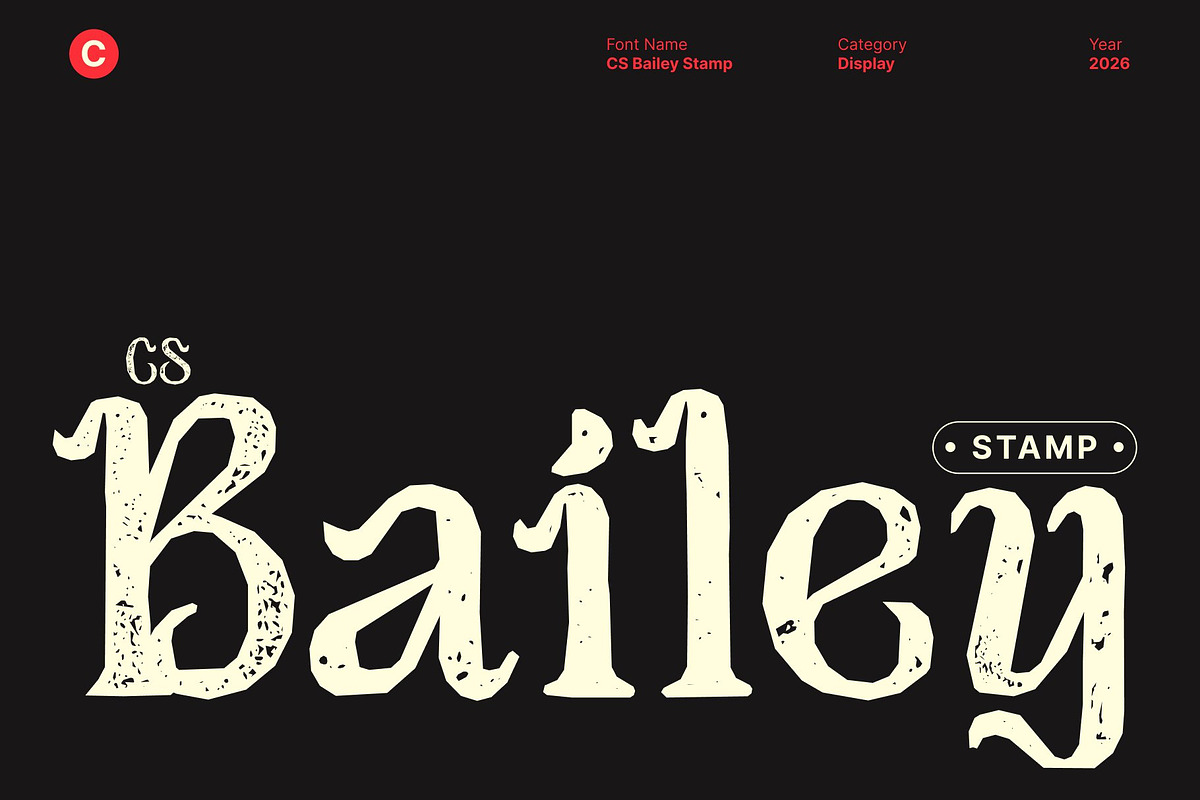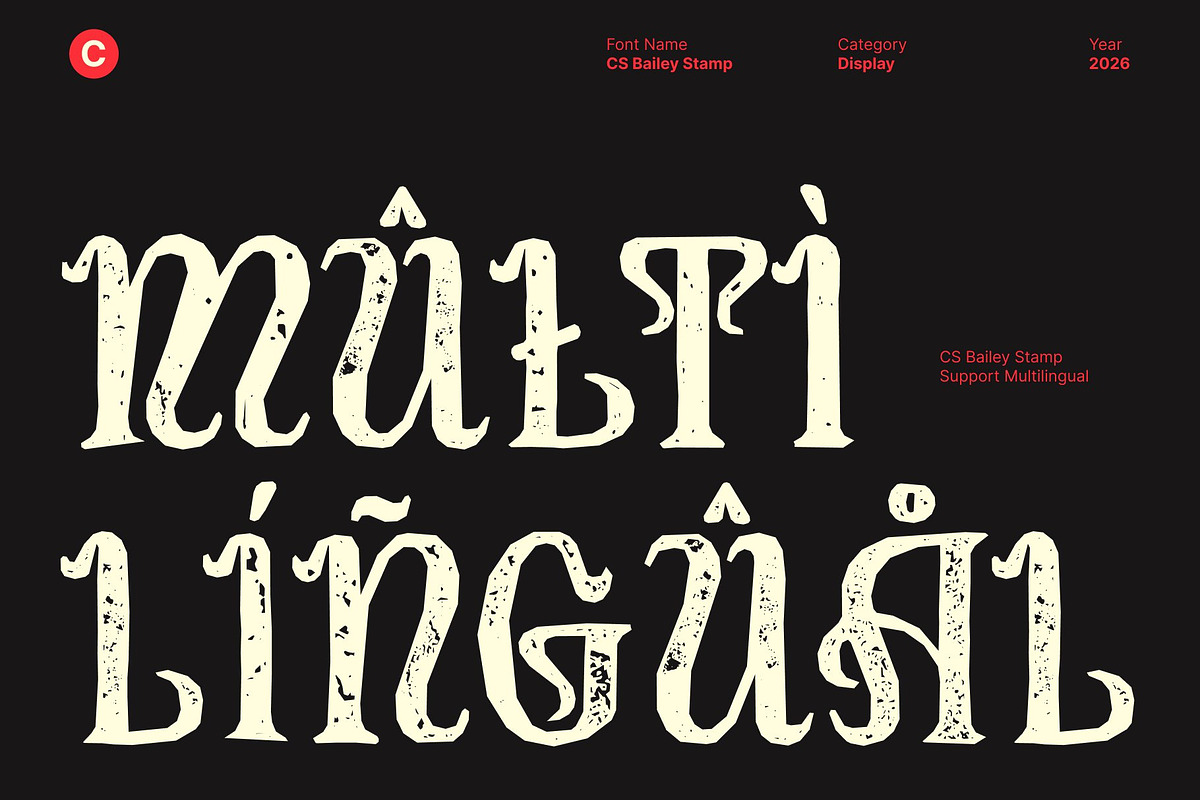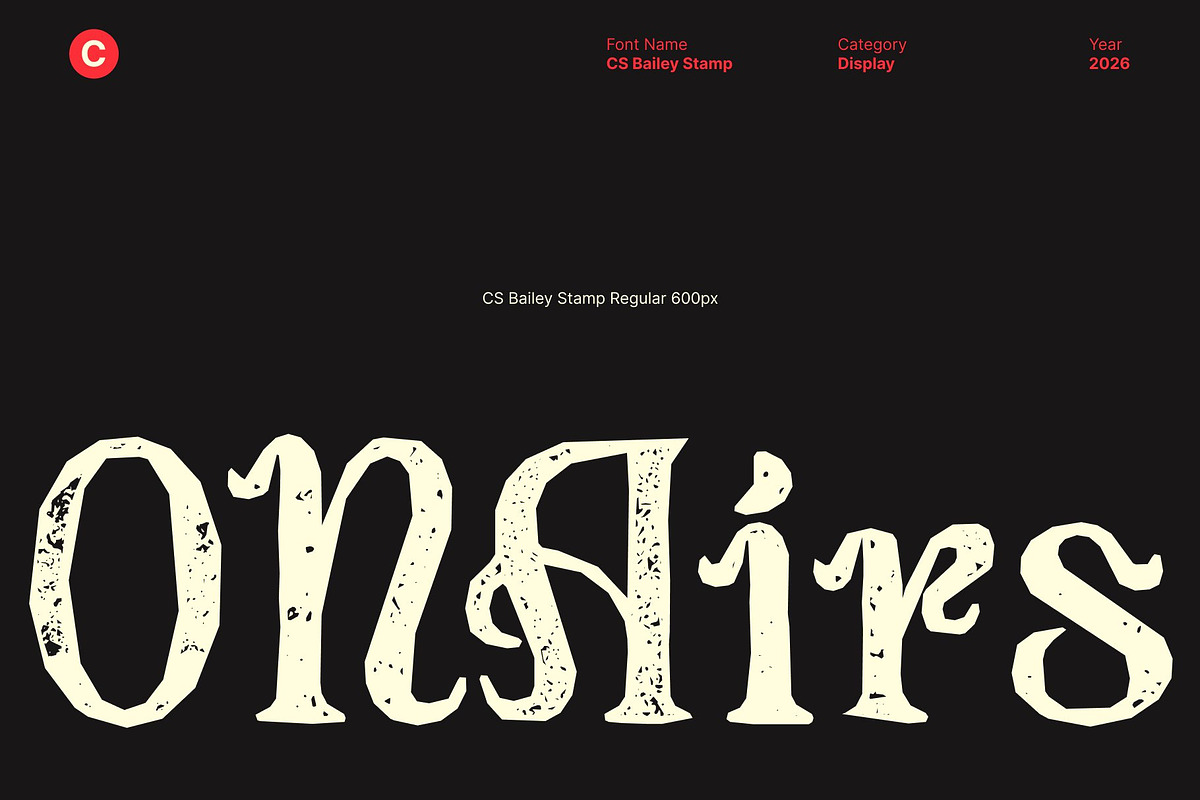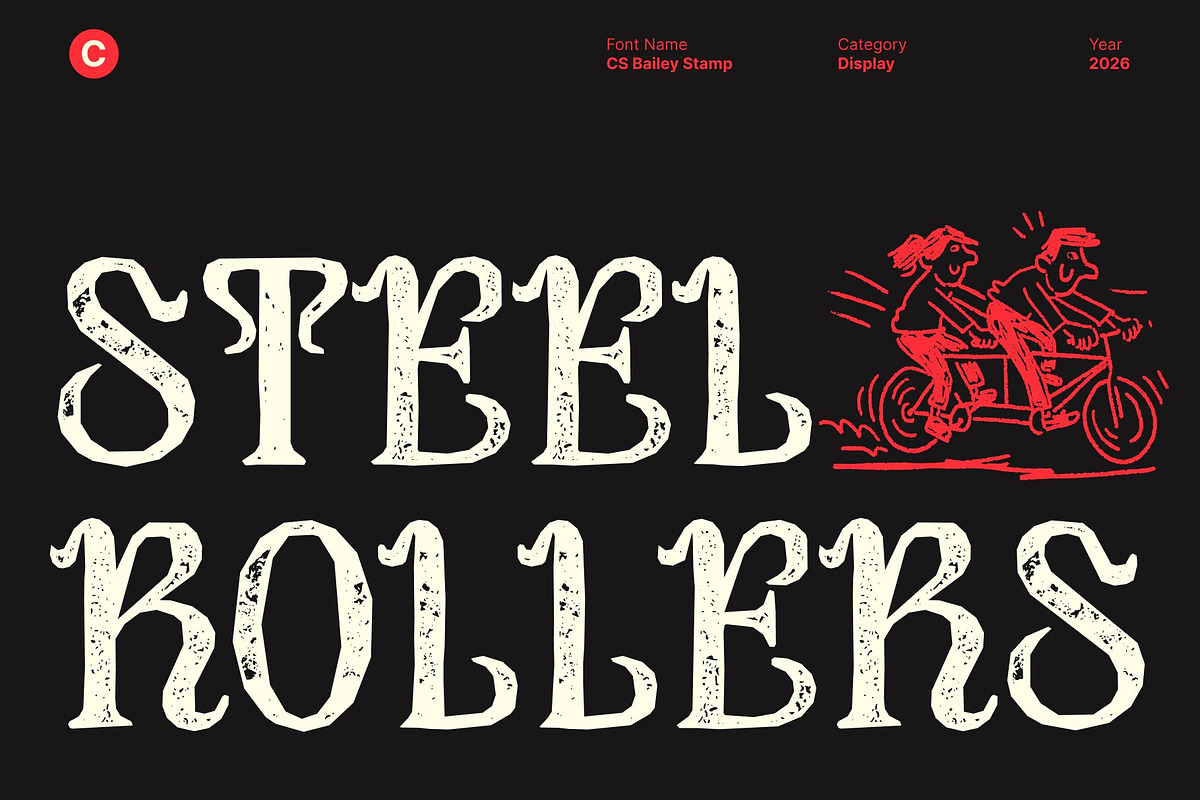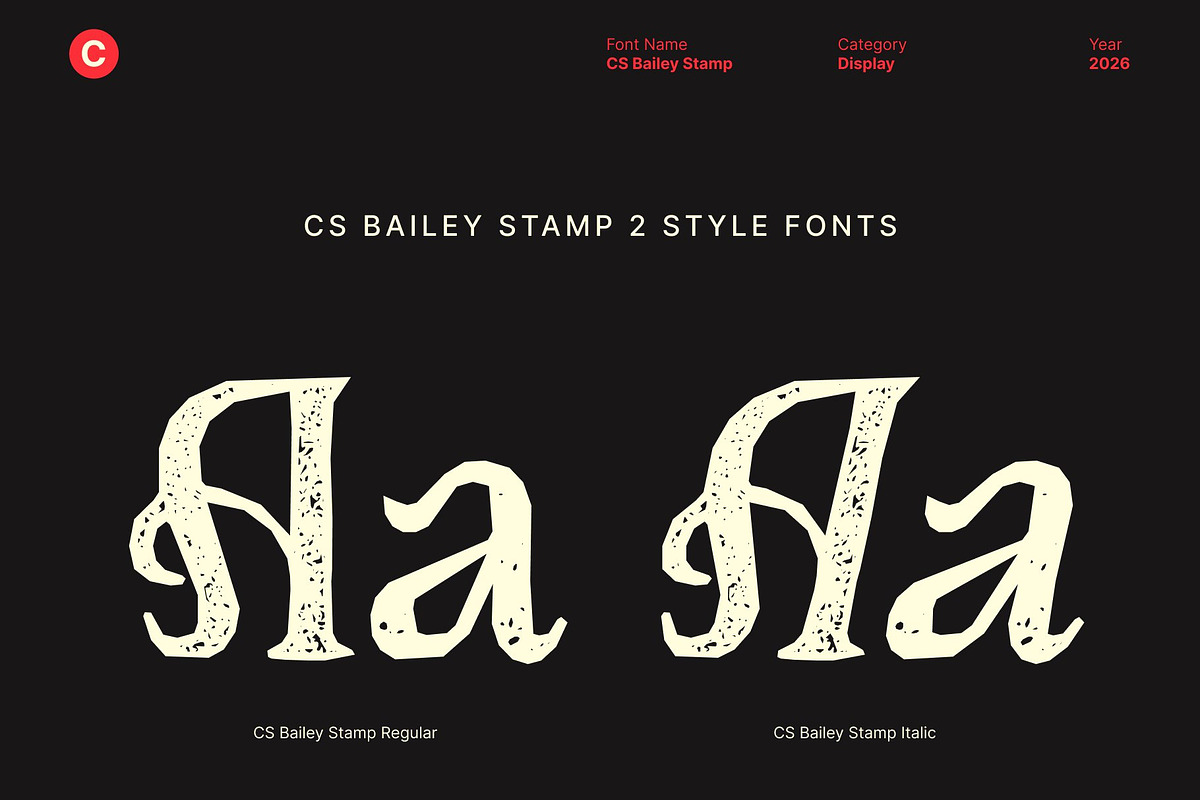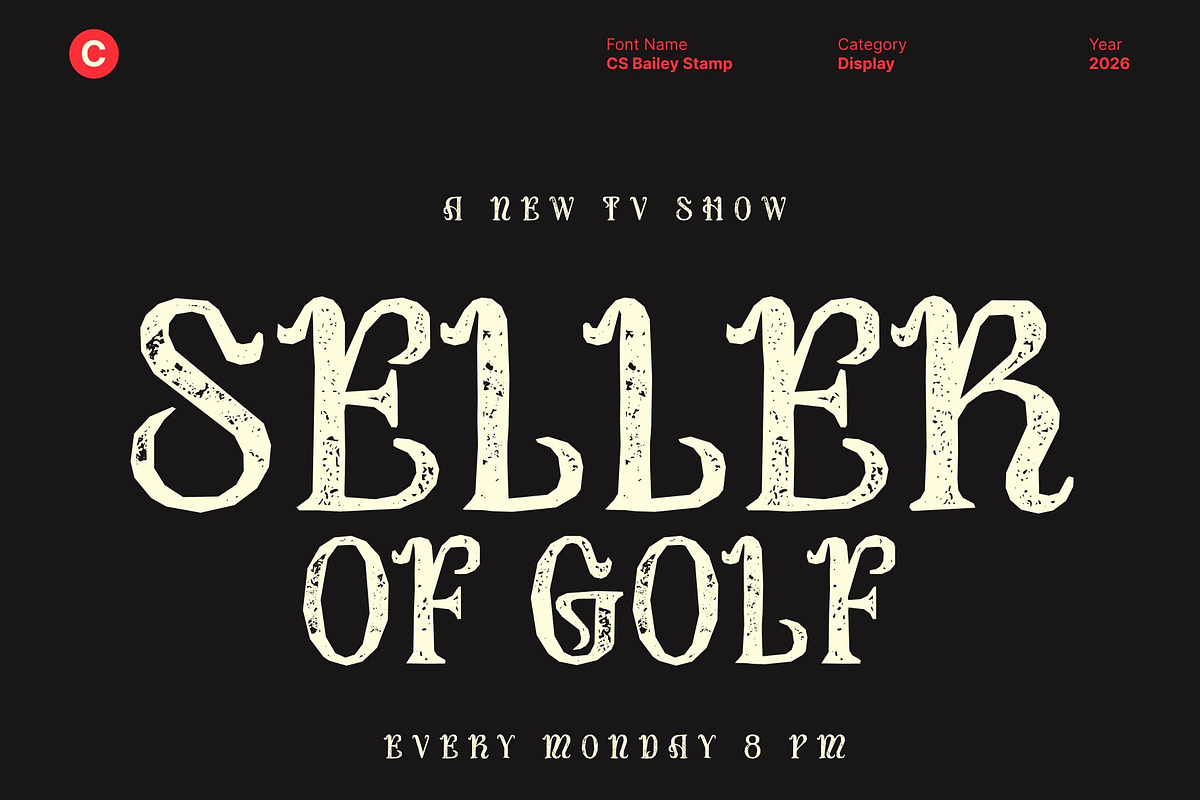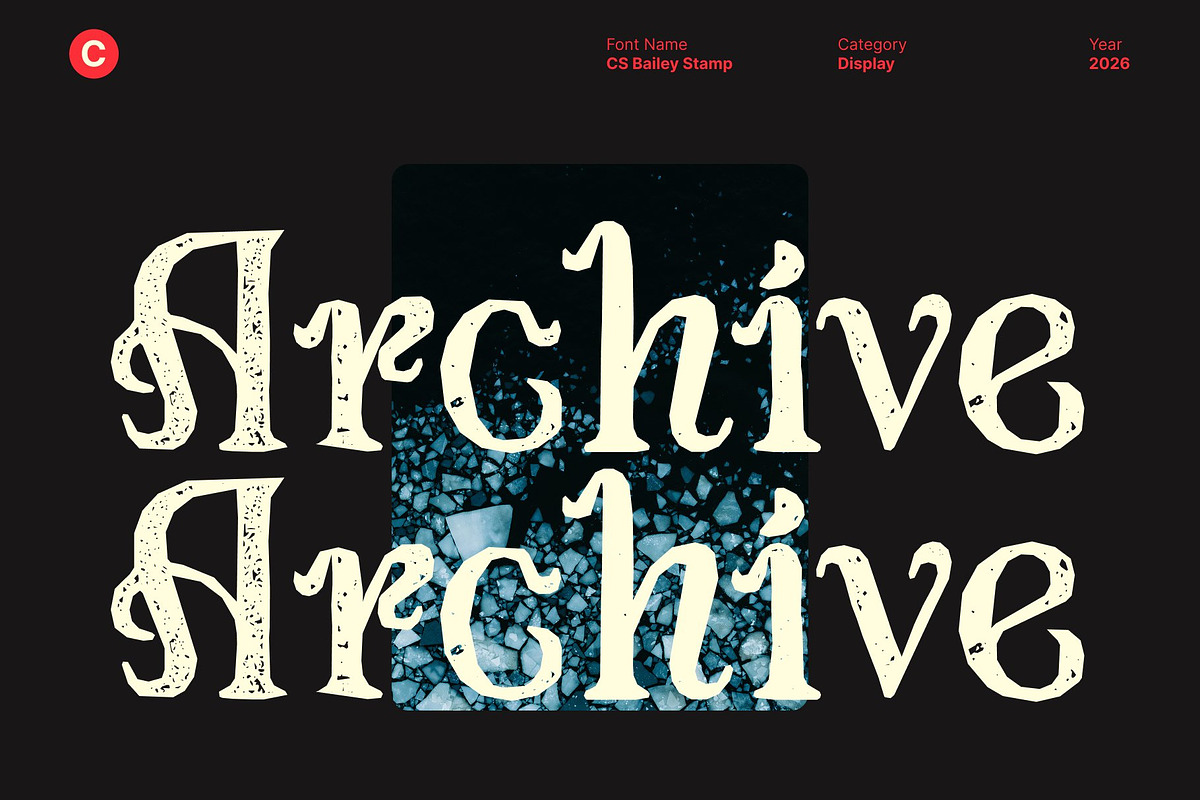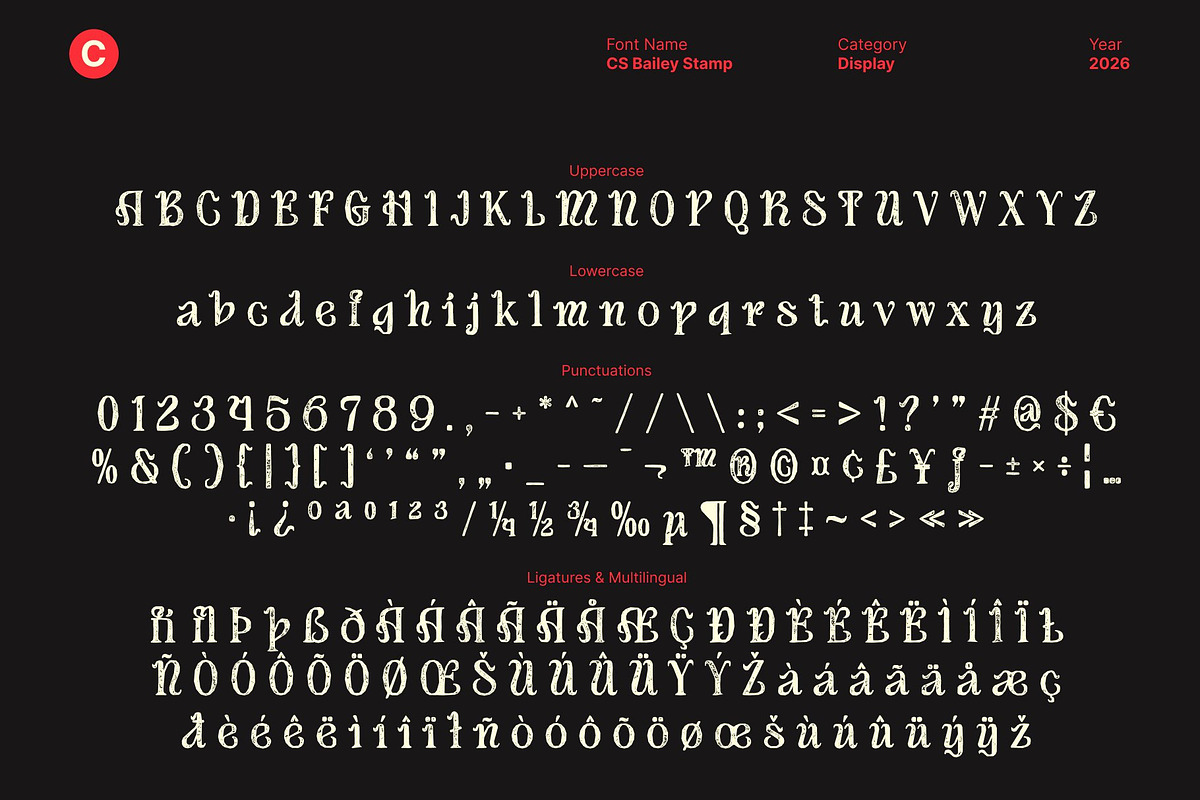
CS Bailey Stamp
CS Bailey Stamp – Art Nouveau Font: Timeless Elegance with Artistic Flair
Flowing Ornamental Forms with Vintage Character This is an Art Nouveau–inspired display serif font that radiates beauty, elegance, and sophistication. Its flowing ornamental forms and intricate letter details embody the graceful curves and decorative spirit of the Art Nouveau movement. Enhanced with a stamp effect, the font gains a subtly aged texture that adds character, depth, and a sense of timeless artistry.
Refined Artistic Details with Stamped Texture The refined and artistic construction of this font is enriched by delicate stamped imperfections, creating an organic, handcrafted impression. This textured finish softens the precision of its elegant forms, resulting in a warm vintage aesthetic that feels expressive and authentic. The combination of ornate design and stamp texture makes it especially appealing for high-end branding, luxury editorials, and upscale visual storytelling.
Perfect for Upscale and Luxury Designs This font excels in projects that demand a luxurious and distinguished presence. Whether applied to premium branding, refined packaging, editorial layouts, or sophisticated invitations, the font delivers a unique blend of classic elegance and artistic texture evoking both refinement and historical charm.
Enhance Your Designs with Graceful, Artistic Aesthetics Ideal for designs that seek to leave a lasting impression, offers a harmonious balance of beauty, sophistication, and vintage appeal. Its Art Nouveau inspiration paired with a textured stamp finish ensures your projects stand out with graceful aesthetics, artistic richness.